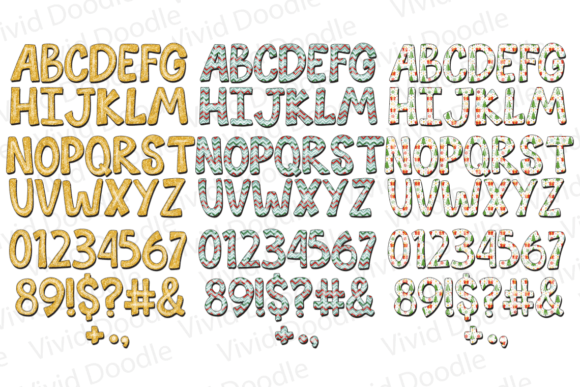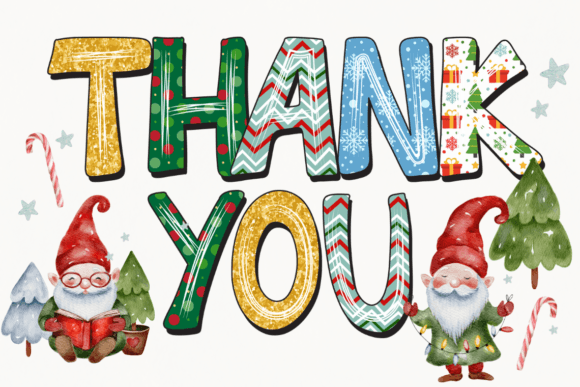
Christmas Joy Doodle Font
Christmas Joy Doodle Font is a festive and whimsical handwritten typeface designed to bring the magic of the Christmas season to life. Perfect for winter and holiday-themed projects, this font is ideal for creating school materials, posters, greeting cards, and creative art. The playful doodle style adds a joyful touch to graphic designs, making it a great choice for both professional and personal projects. Whether you’re designing for Christmas decorations, crafting holiday messages, or adding a fun twist to your work, Christmas Joy Doodle Font brings warmth and cheer to any project.